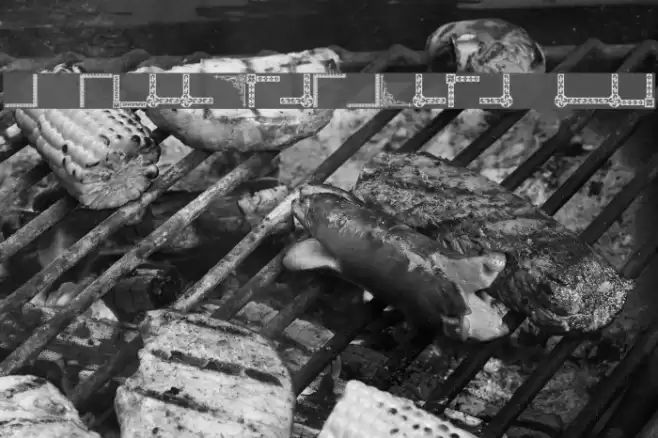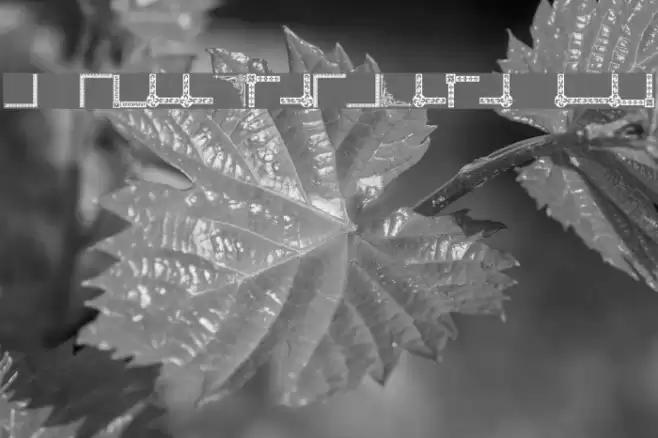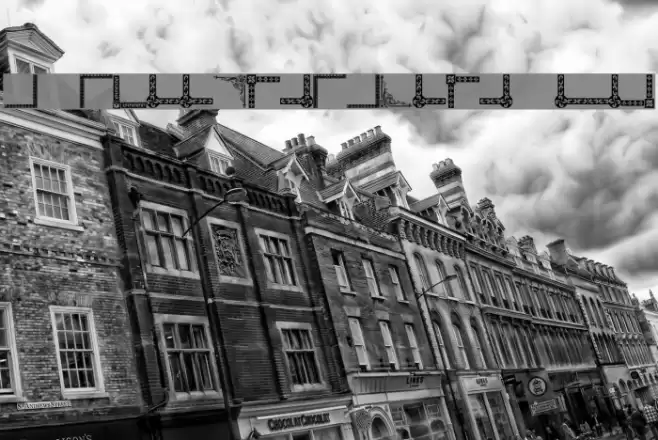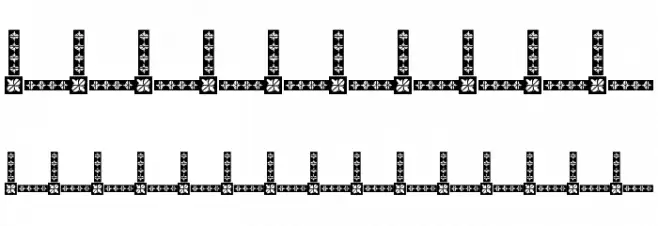
Vintage Decorative Corners 8 Font
Vintage Decorative Corners 8 Description
Ornamental decorative corner and border elements featuring intricate vintage patterns, with repeating motifs and flourishes suitable for framing or embellishing designs.
- Proposed Projects: Invitations, certificates, book covers, posters, decorative frames, vintage-themed branding.
- Contrast: High
- Overall Style: Vintage, Ornamental, Decorative
- Use Case: Borders, Frames, Decorative accents